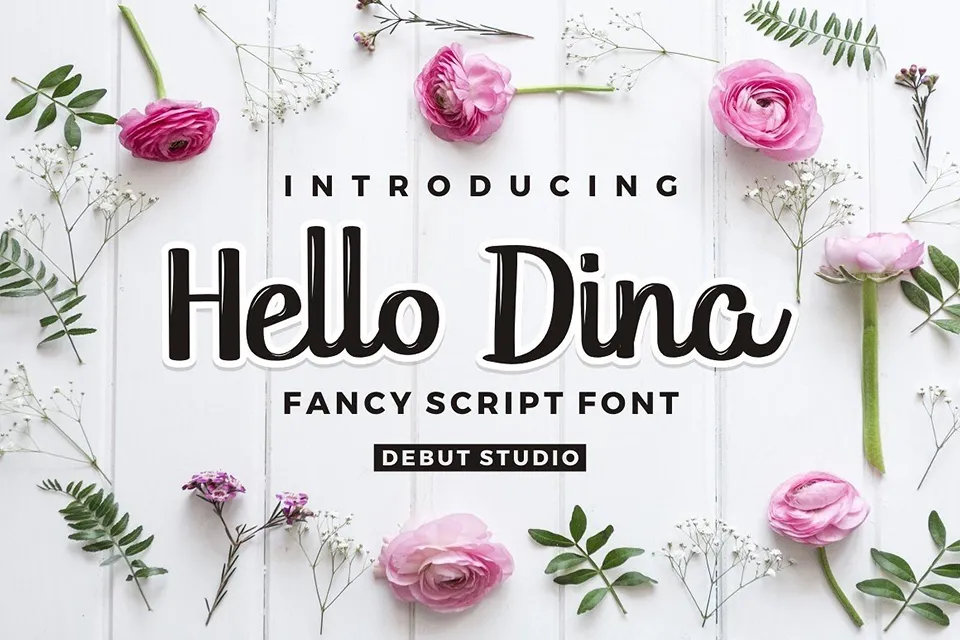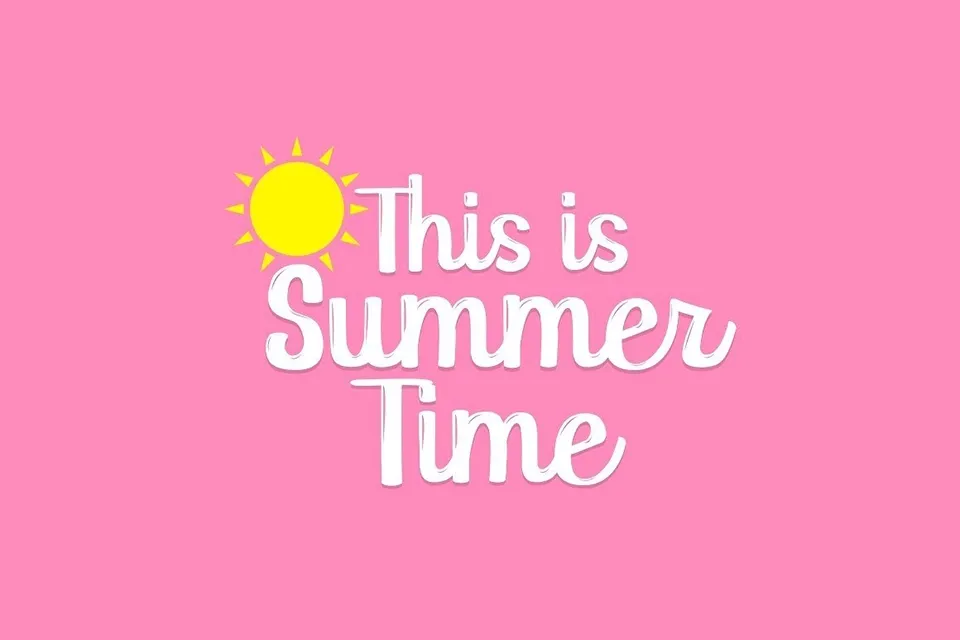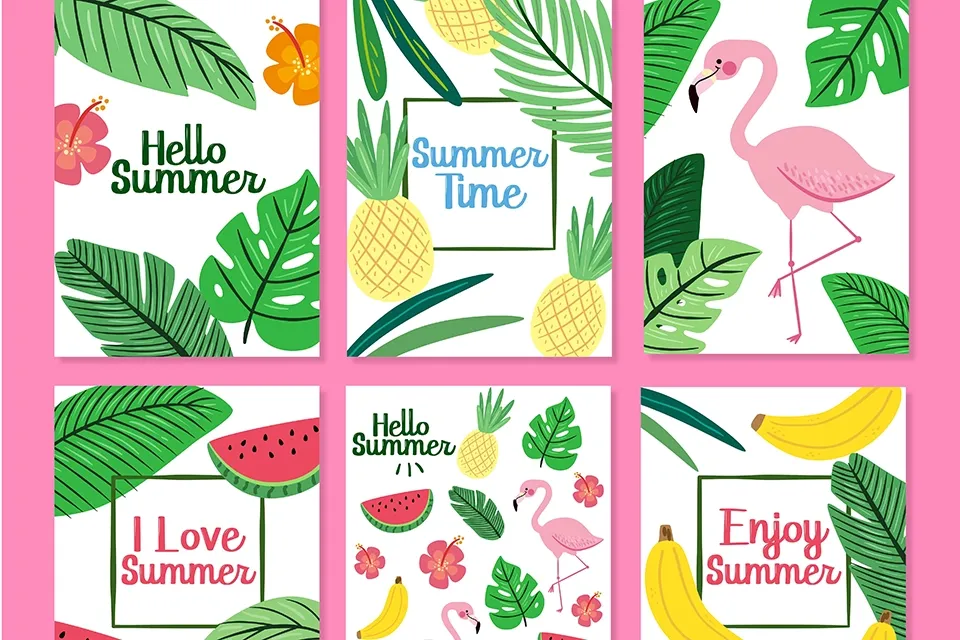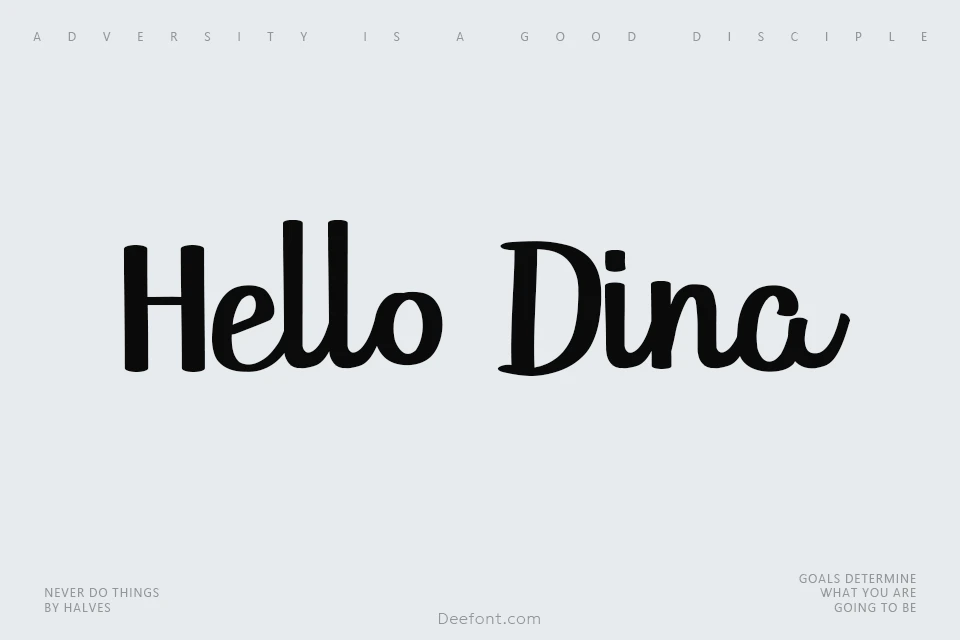
Hello Dina Font
Introducing Hello Dina Script
This font inspired from my handlettering, that look fancy and cute, Suitable for the design of holiday cards, postcards, brochures, invitations, and other interesting design purposes